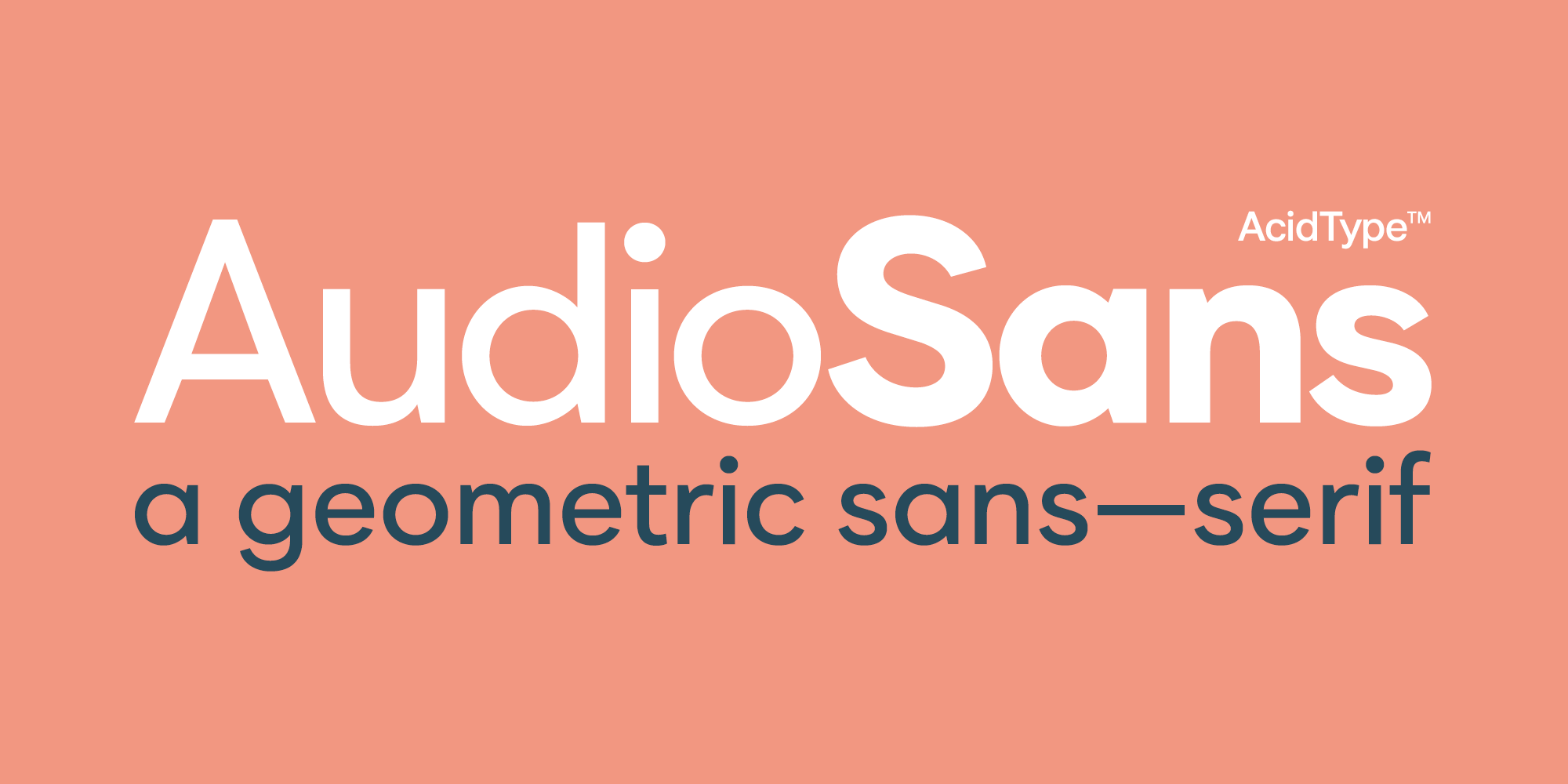
Audio Sans Font is perfect for music streaming platforms, sound equipment branding, audio technology websites, recording studio signage, podcast logos, music festival posters, DJ event promotions, and entertainment industry materials that require modern technical typography with sonic precision and audio-inspired character.
This Audio Sans Font is exciting because it harmoniously blends technical precision with musical rhythm, featuring clean geometric letterforms with subtle sound wave influences that convey both technological sophistication and creative energy while maintaining exceptional clarity for digital audio applications and entertainment branding.
The Audio Sans Font family includes multiple weights with tech-inspired styling, complete character sets with precise uppercase and lowercase letters, digital numerals, technical punctuation, and audio symbols that provide comprehensive typography solutions for music and technology projects requiring modern sonic aesthetics and professional audio appeal.
Perfect for creating dynamic audio communications and entertainment technology branding, Audio Sans Font Free Download delivers the precise technical typography that transforms text into powerful expressions of sound and technology innovation. This distinctive typeface captures the essence of modern audio culture and digital music evolution, making it essential for projects celebrating music technology, audio engineering, sound design, and any creative work requiring clean technical character with authentic audio industry sophistication.